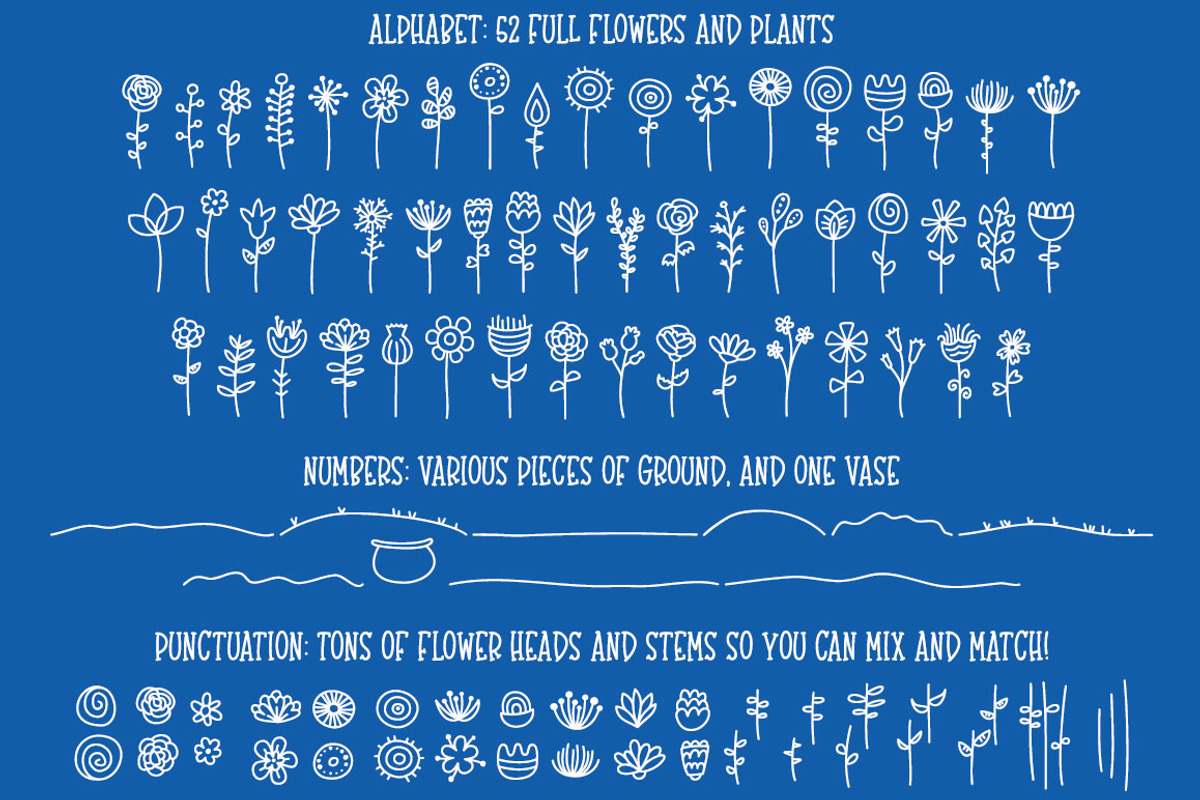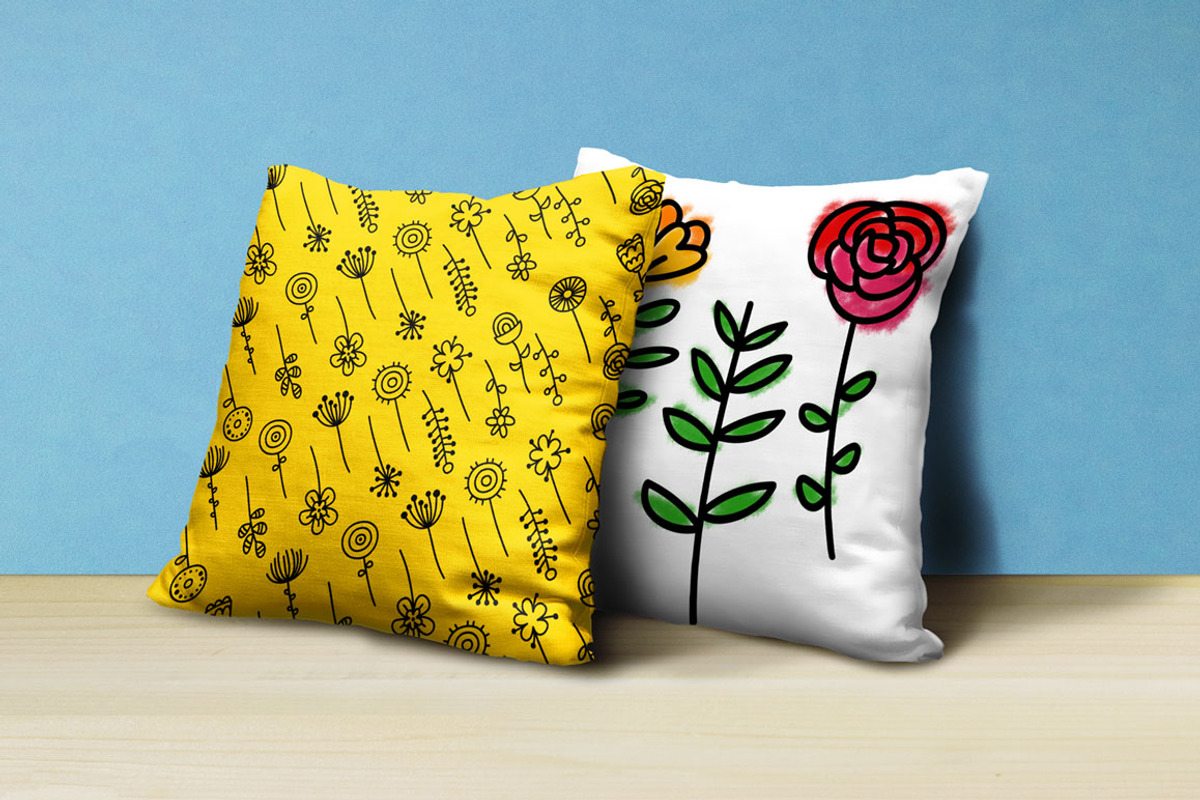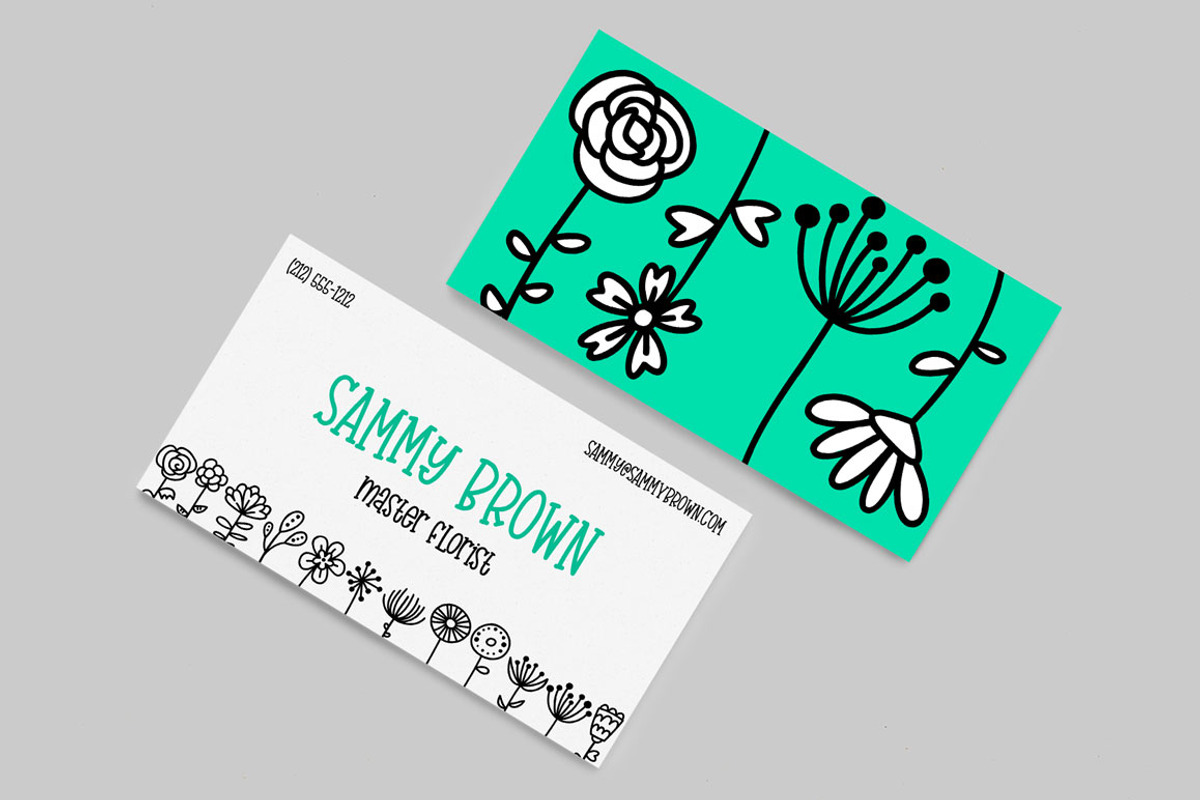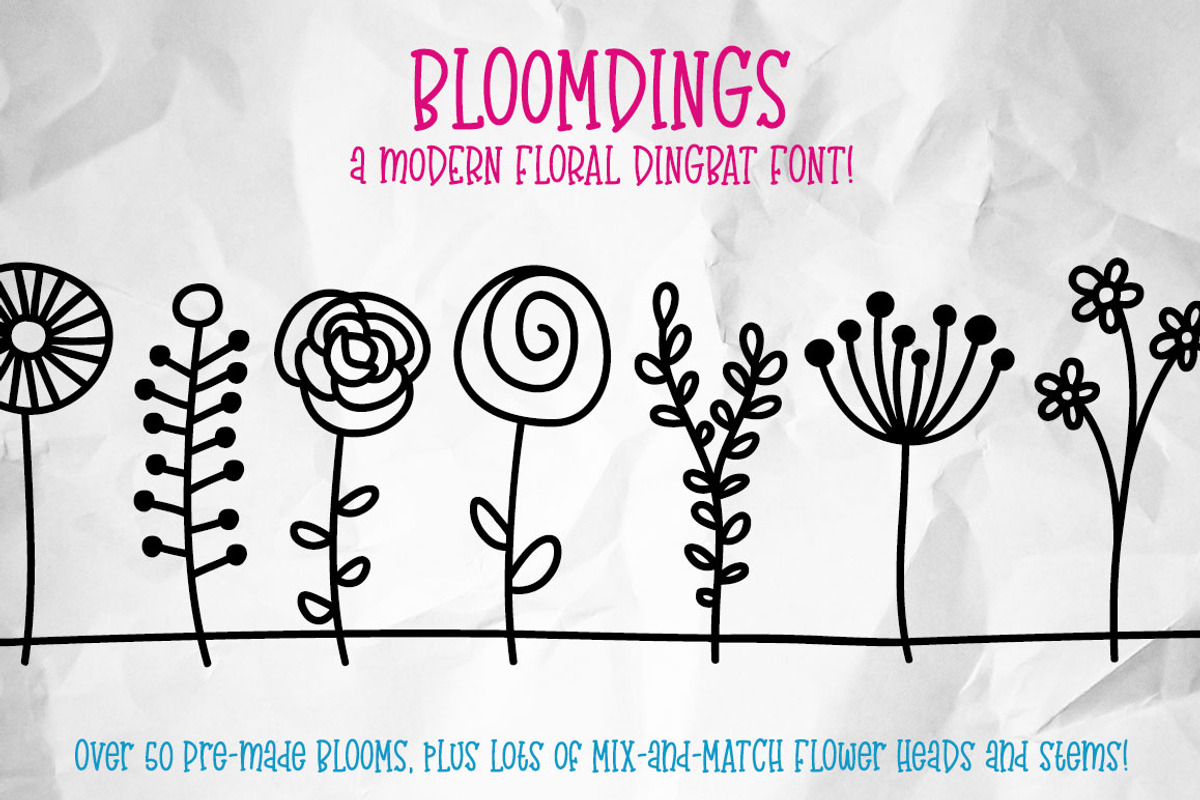
Bloomdings: abstract floral dingbats
Bloomdings is a dingbat font all about modern abstract flowers. It includes over 50 completed flowers and floral elements, plus even more individual parts so you can mix and match to create the perfect flowers for your project!
- 52 complete flowers and greens mapped to A-Z and a-z keys
- 9 pieces of ground and 1 vase, mapped to 0-9 keys
- 42 flower heads mapped to punctuation
- 24 flower stems mapped to punctuation